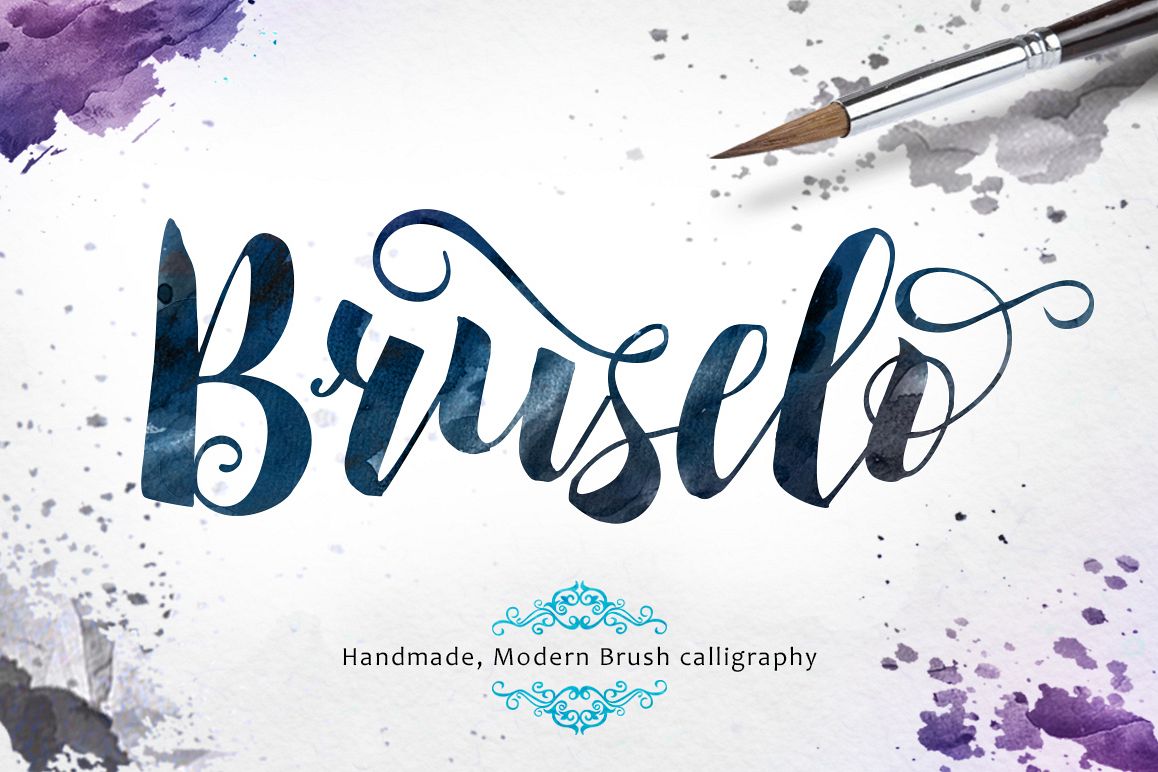
Bruselo Script
Bruselo Scrip
Bruselo script calligraphy brush
modern, stylish smooth hands, which in chant through the softness of fur
brush, a blend of classic and modern touch and elegant. Can be used for
various purposes.such as the title, signature, logo, correspondence,
t-shirts, wedding invitations, letterhead, signage, labels, newsletters,
posters, badges, etc. Bruselo Script features 389
Breton, Chamorro, Dutch, English, Frisian, Galician, German, Italian,
Malagasy, Portuguese, all european languages that are based on latin
alphabet
The Features of this fonts is:
• Contextual Alternates
• Standart ligatures
• Swashes
• Stylistic sets
Basic Latin A-Z and a-z Numbers Symbols